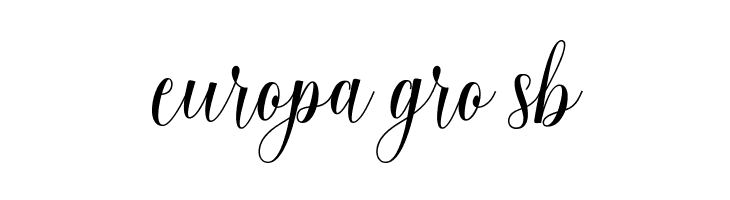
An elegant, flowing script font with ornate uppercase letters and smooth, connected lowercase letters.
An elegant script font with flowing, cursive strokes and graceful curves.
A playful, handwritten script font with elegant loops and smooth curves.
A lively and elegant script font with flowing, cursive letterforms.
A charming and elegant handwritten font with fluid, cursive strokes.
A playful and elegant script font with a handwritten style.
An elegant and flowing script font with intricate loops and swirls.
A sophisticated cursive font with elegant, flowing strokes.